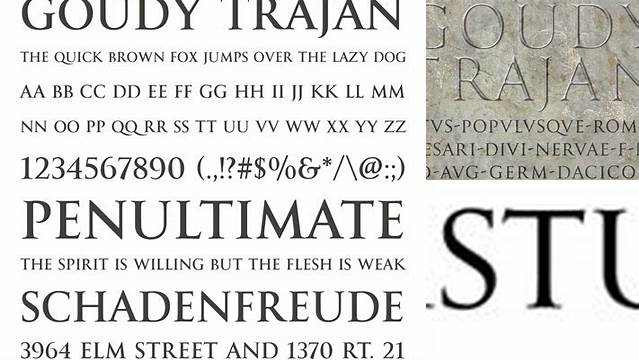
Are you looking for Goudy Trajan Pro font free download? Guys, you've come to the right place! This font is a timeless classic, perfect for adding a touch of elegance and sophistication to any design project. In this article, we'll dive deep into the history, characteristics, and best uses of Goudy Trajan Pro, and most importantly, where you can download it for free. So, let's get started and unlock the potential of this incredible typeface!
What is Goudy Trajan Pro?
First off, let's talk about what makes this font so special. Goudy Trajan Pro is more than just a typeface; it's a masterpiece of design, steeped in history and artistry. Designed by Frederic Goudy in 1930, it's an adaptation of the lettering found on the Trajan Column in Rome. Think about that for a second—we're talking about a font inspired by inscriptions from ancient Rome! This gives it a unique gravitas and timeless appeal that few other fonts can match.
Goudy, a prolific American typographer, aimed to capture the essence of classical Roman capitals while adding his own artistic flair. The result is a typeface that exudes elegance, authority, and a sense of permanence. The letterforms are beautifully proportioned, with a subtle contrast between thick and thin strokes, giving it a refined appearance. The serifs are sharp and well-defined, adding to the font's classic feel.
One of the key characteristics of Goudy Trajan Pro is its all-caps design. Yes, you heard that right! It doesn't have a lowercase version. This might seem limiting at first, but it's actually one of its greatest strengths. The uppercase letters are so meticulously crafted that they work beautifully together in headlines, titles, and other display settings. It's the kind of font that instantly commands attention and adds a touch of class to any project. The absence of lowercase letters forces designers to think creatively about how to use the font effectively, often leading to striking and memorable results.
The font's design also incorporates a sense of balance and harmony. The letterforms are carefully spaced, ensuring readability and visual appeal. Each character is designed to complement the others, creating a cohesive and visually pleasing whole. This attention to detail is what sets Goudy Trajan Pro apart from many other fonts and makes it a favorite among designers who appreciate the finer things in typography. The Goudy Trajan Pro font family includes various weights and styles, giving designers a range of options to choose from depending on their specific needs. Whether you're looking for a bold and impactful headline or a more subtle and refined title, Goudy Trajan Pro has you covered.
In summary, Goudy Trajan Pro is a typeface that combines historical inspiration with artistic innovation. Its elegant letterforms, all-caps design, and attention to detail make it a standout choice for projects that require a touch of classic sophistication. The enduring popularity of Goudy Trajan Pro is a testament to its timeless appeal and the skill of its creator, Frederic Goudy. When you use Goudy Trajan Pro, you're not just choosing a font; you're choosing a piece of typographic history.
So, what exactly makes Goudy Trajan Pro tick? Let's break down its key features and characteristics to understand why it's such a beloved typeface. This isn't just about how it looks; it's about the underlying design principles that make it so effective.
First and foremost, we have to reiterate the all-caps design. This isn't a flaw; it's a feature! The uppercase letters are meticulously crafted, each one a work of art in itself. This focus on uppercase letterforms gives Goudy Trajan Pro a distinctive and authoritative presence. Think about it – when you see a headline set in Goudy Trajan Pro, it instantly conveys a sense of importance and sophistication. The absence of lowercase letters might seem like a limitation, but it actually encourages designers to use the font creatively and strategically. It's perfect for titles, headings, and short blocks of text where you want to make a statement.
The serifs are another defining characteristic of this font. They're sharp, clean, and well-defined, adding to the font's classical feel. Serifs are the small strokes that extend from the ends of the letterforms, and in Goudy Trajan Pro, they're particularly elegant. They contribute to the font's readability and give it a polished, professional look. The serifs also help to guide the eye across the page, making it easier to read longer stretches of text (though, let's be honest, you probably wouldn't use Goudy Trajan Pro for body text!).
The proportions of the letterforms are also crucial. Goudy Trajan Pro is designed with a careful balance between thick and thin strokes, creating a visually pleasing contrast. This contrast adds to the font's elegance and makes it stand out from more generic typefaces. The letters are also beautifully spaced, ensuring readability and preventing the text from feeling cramped or cluttered. The attention to detail in the letter spacing is a hallmark of Goudy's design philosophy. Good spacing is essential for readability and visual harmony, and Goudy Trajan Pro excels in this area.
Another key feature is its historical inspiration. As we mentioned earlier, Goudy Trajan Pro is based on the lettering found on the Trajan Column in Rome. This historical connection gives the font a sense of gravitas and timelessness. It's a typeface that feels both classic and contemporary, making it suitable for a wide range of design projects. Using a font with such a rich history can also add depth and meaning to your designs. It's like you're tapping into centuries of typographic tradition.
In closing, Goudy Trajan Pro is a classic for a reason. Its elegance, authority, and timeless appeal make it a font that will continue to be used and admired for years to come. It's a testament to the power of good design and the enduring legacy of Frederic Goudy. Thanks for joining me on this exploration of Goudy Trajan Pro. Happy designing, everyone!